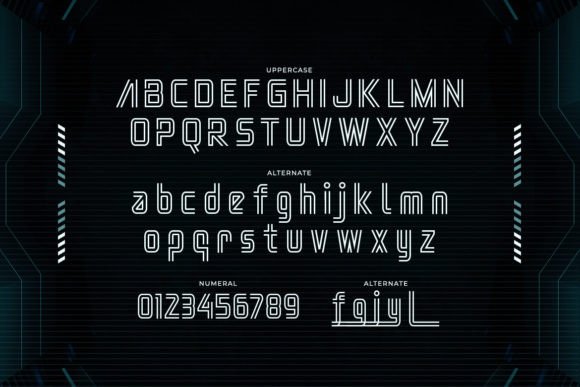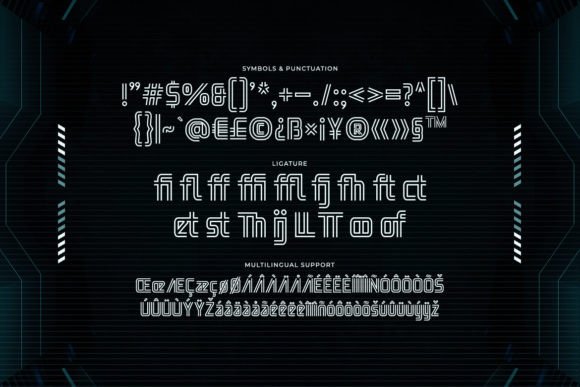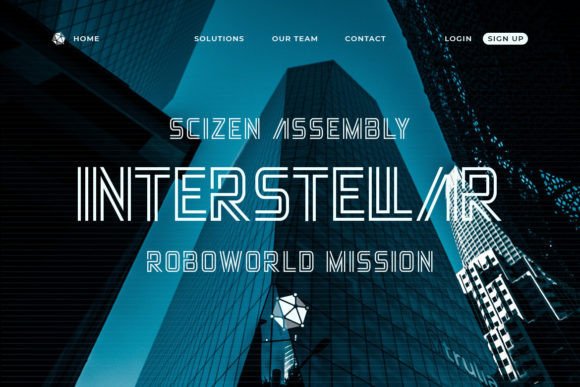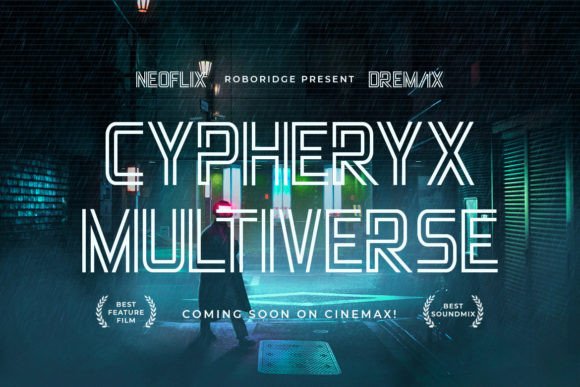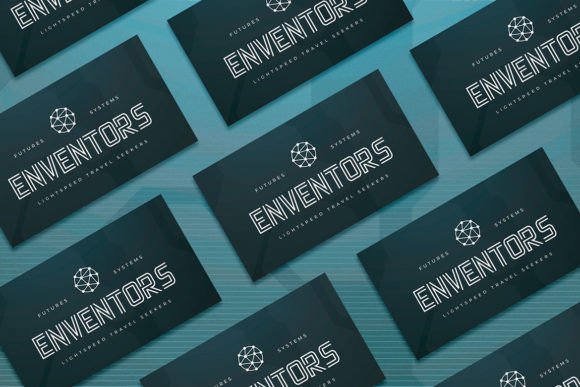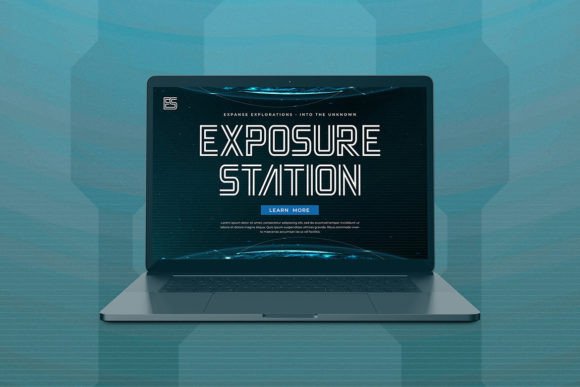
Getting Lost in the Cosmos of Design
Do you ever find yourself staring at a blank canvas, waiting for the perfect font to bring your creative project to life? It’s that moment when the stars align, and the universe whispers the perfect typography in your ear. For designers like us, it’s a moment of pure magic. And today, I’m excited to share with you a font that will transport you to a world of futuristic wonder – the Roboridge Font.
Introduction to Roboridge Font
The Roboridge Font is a high-quality, futuristic display typeface that’s perfect for games, sci-fi themes, and space adventures. With its sleek lines and bold characters, this font is sure to elevate your design project to new heights. Whether you’re working on a free download or a paid design resource, the Roboridge Font is a valuable addition to your creative toolbox. And the best part? It’s available for free download, making it an accessible design resource for designers of all levels.
Key Features of Roboridge Font
- High-quality design resource ideal for creative projects, including logos, graphics, and typography.
- Unique characteristics: modern, bold, and futuristic aesthetic, making it perfect for futuristic and sci-fi themed projects.
Honest Review: Roboridge Font
As a designer, I’m always on the lookout for high-quality design resources that can elevate my creative projects. Recently, I came across the Roboridge Font, and I’m excited to share my honest review with you.
- Unique and futuristic design aesthetic that sets it apart from other fonts.
- High-quality design that looks great on both light and dark backgrounds.
- Transparent background, allowing for easy customization and layering.
- Limited character set, which may not be suitable for long-form text or complex designs.
- Not ideal for use in small font sizes, as the design may become pixelated.
Overall, I’m impressed with the Roboridge Font and its potential to add a unique touch to creative projects. While it may have some limitations, I believe it’s a valuable resource for designers who are looking for a high-quality, futuristic font. I’ll definitely be adding it to my design arsenal!
The Roboridge Font is a versatile font that can be used in a variety of creative projects, including logos, business cards, brochures, and social media graphics. It’s also a great choice for designers who want to create a high-quality design with a transparent background.
To get the most out of the Roboridge Font, experiment with different font sizes, colors, and styles to create a unique design. You can also use the font in combination with other design elements, such as images and graphics, to create a visually appealing design.